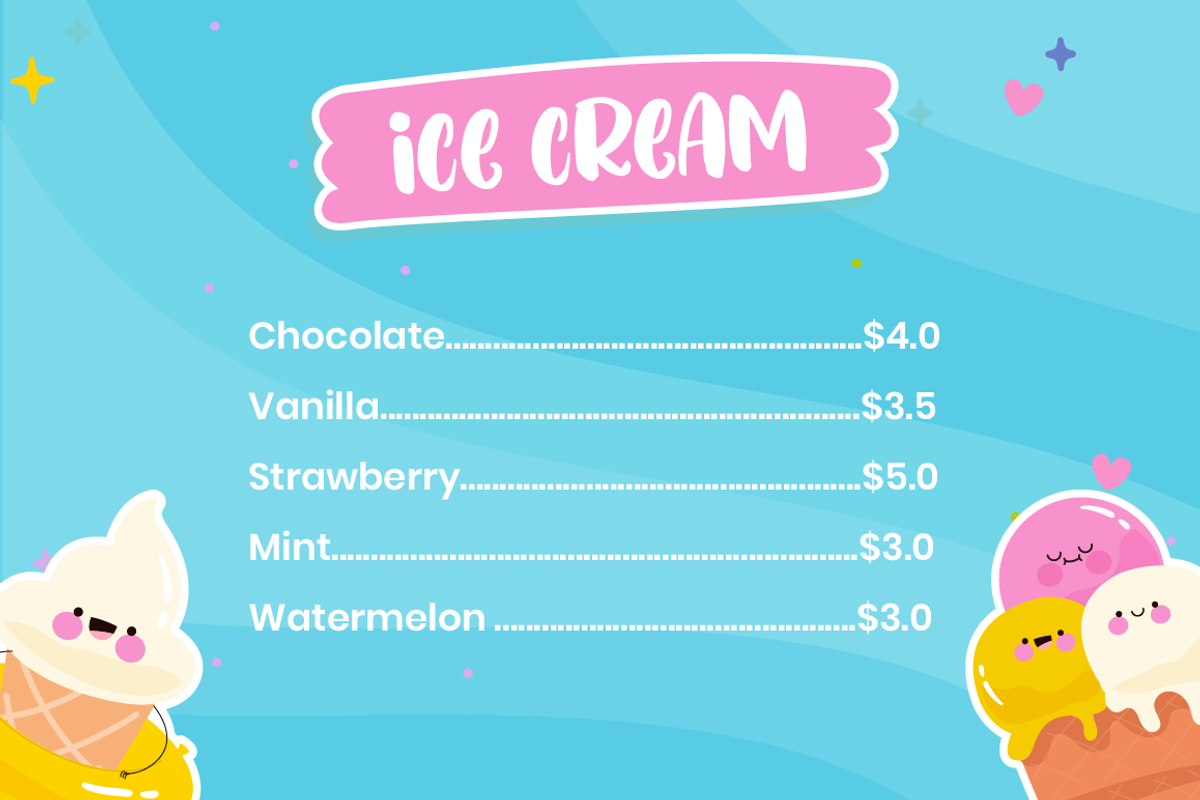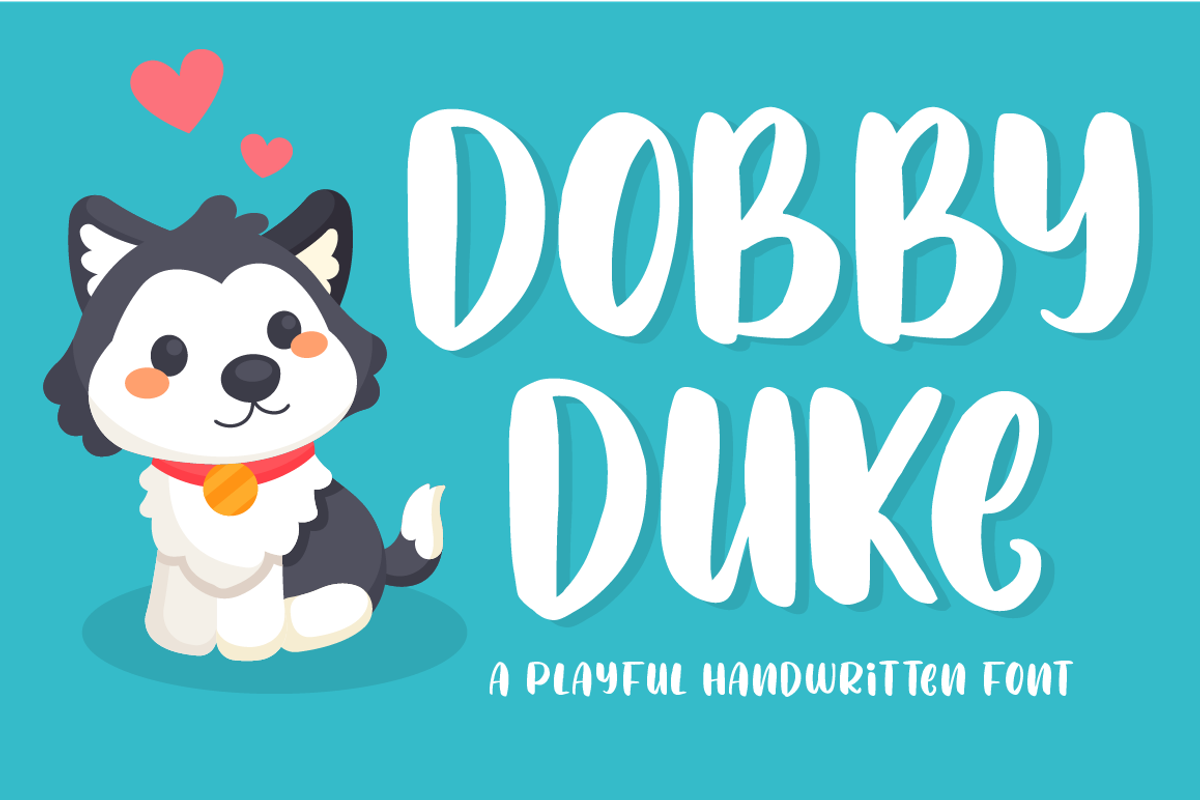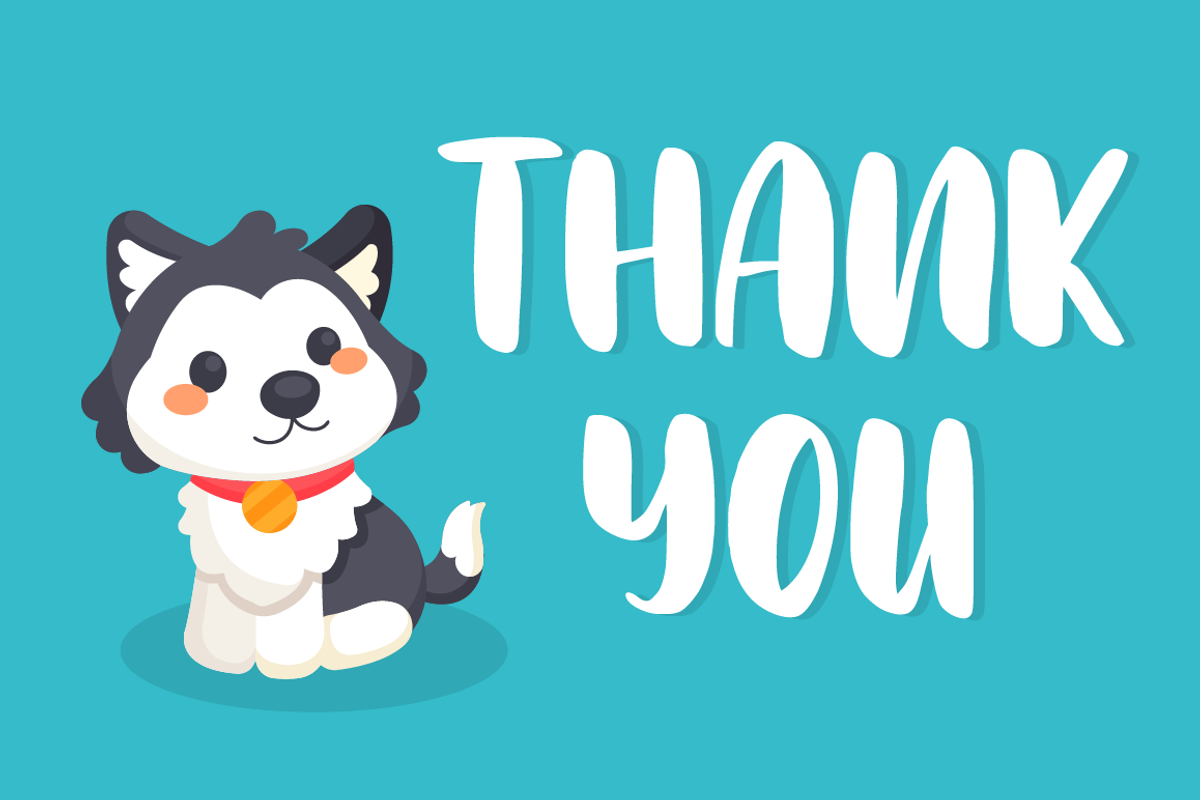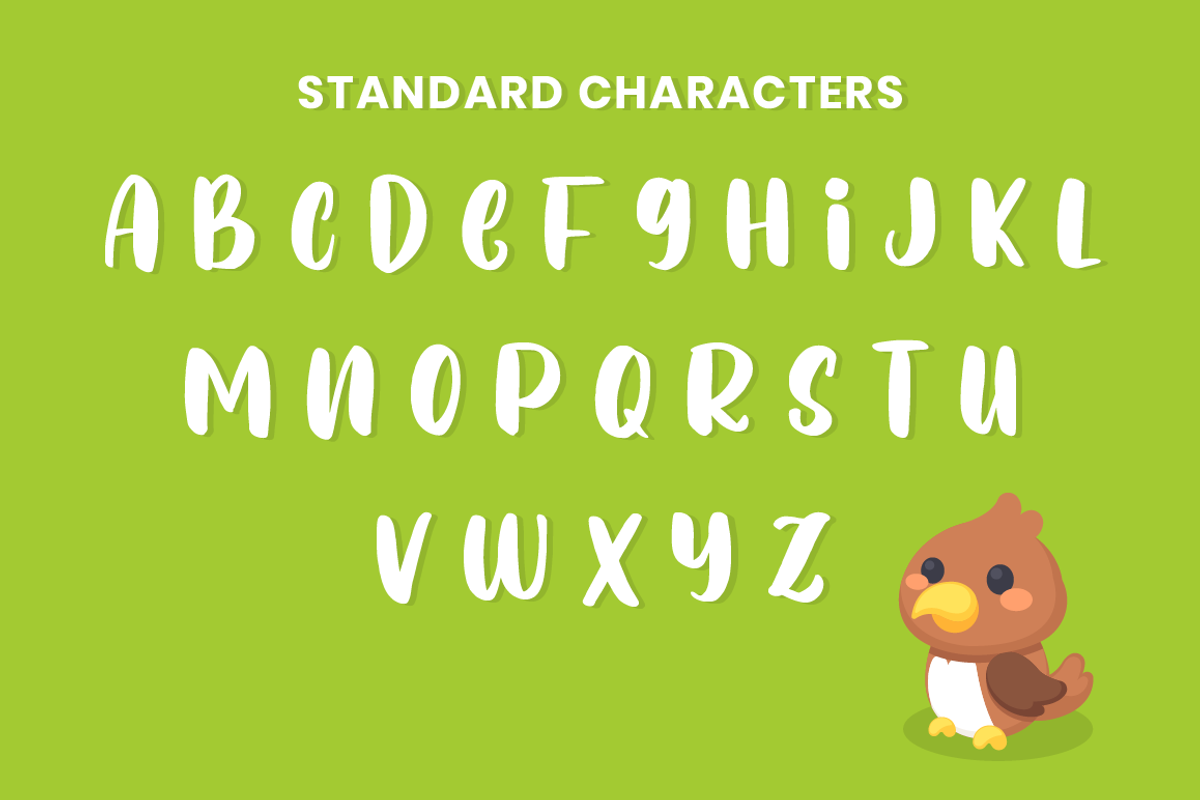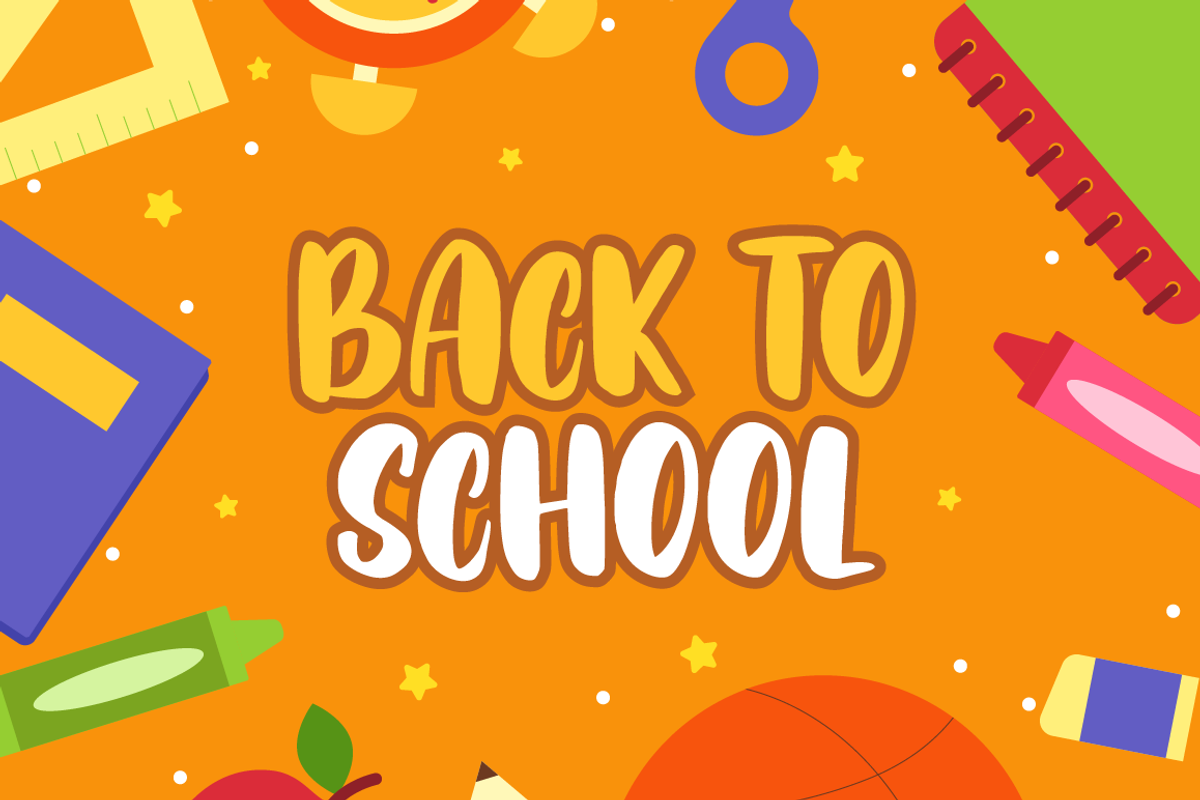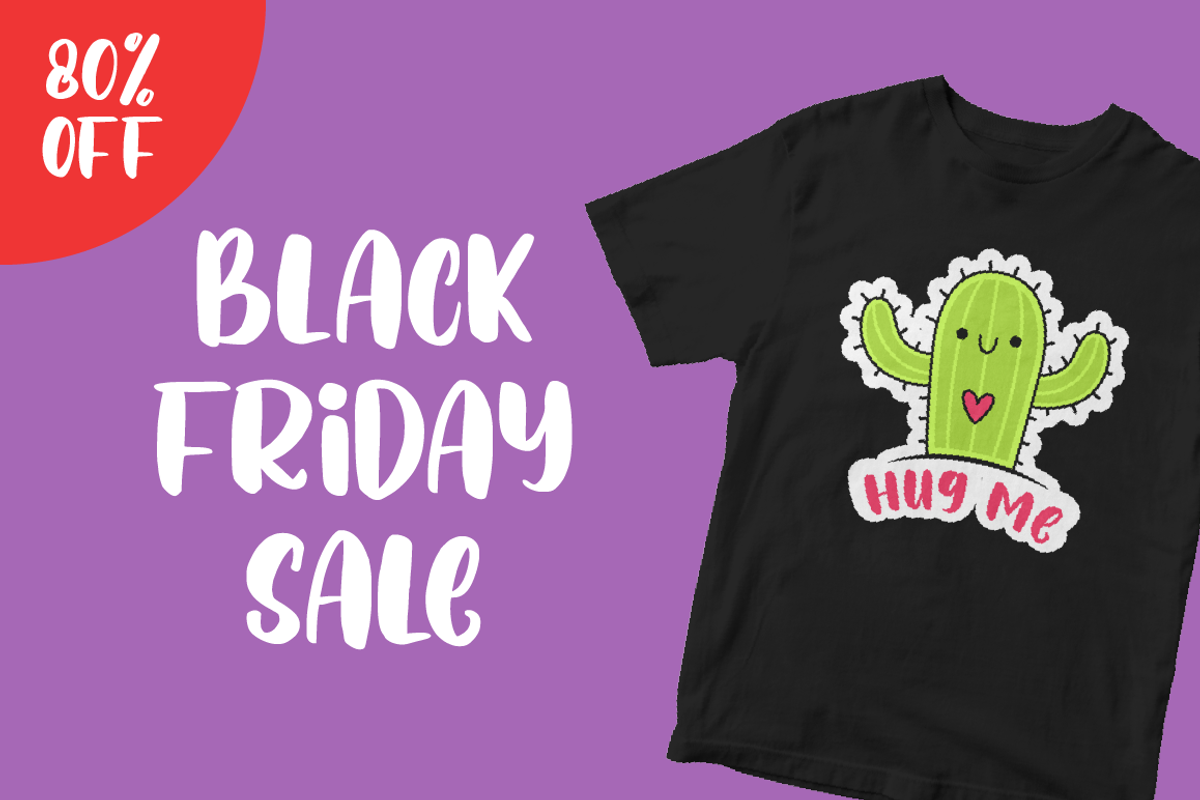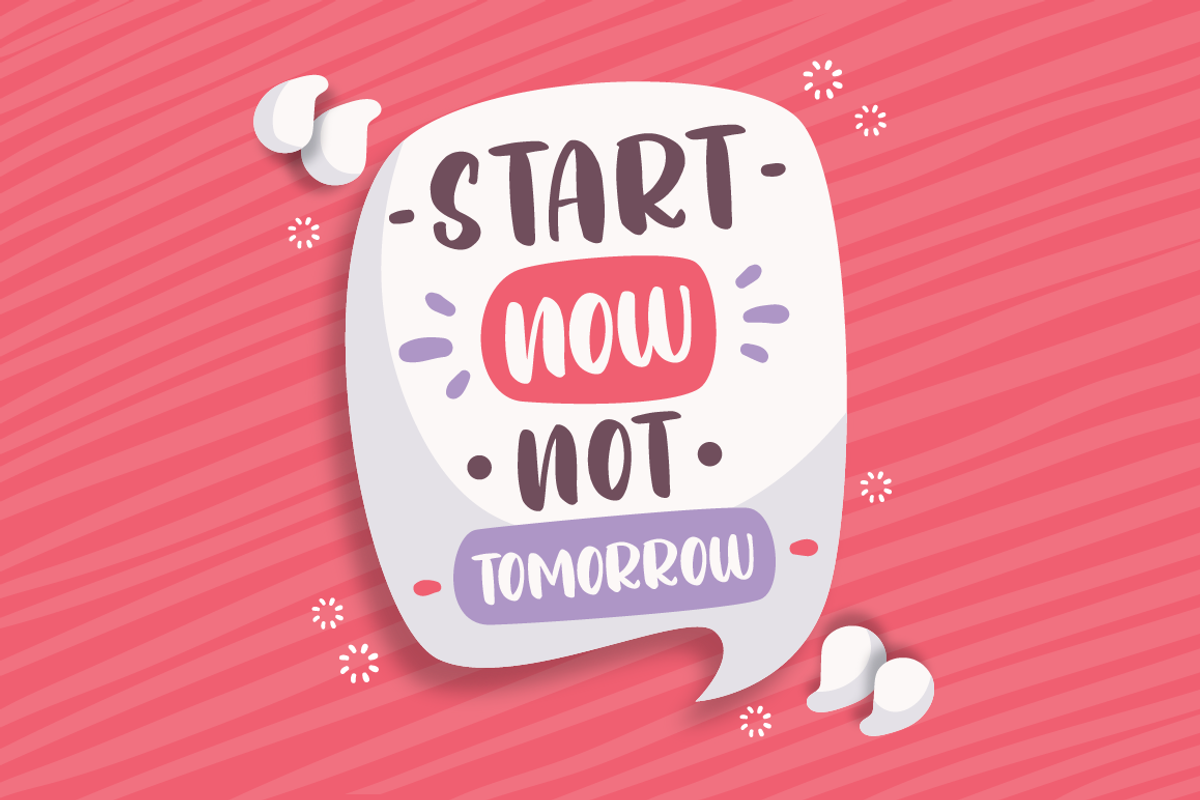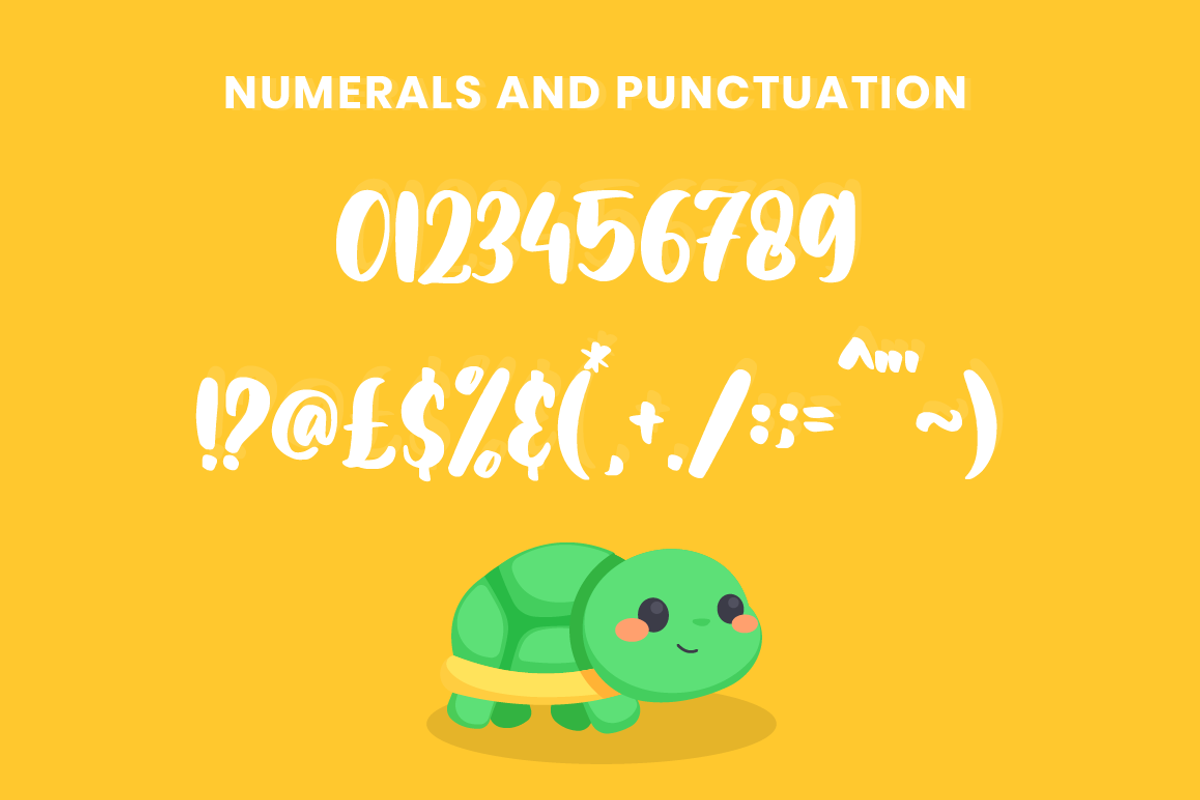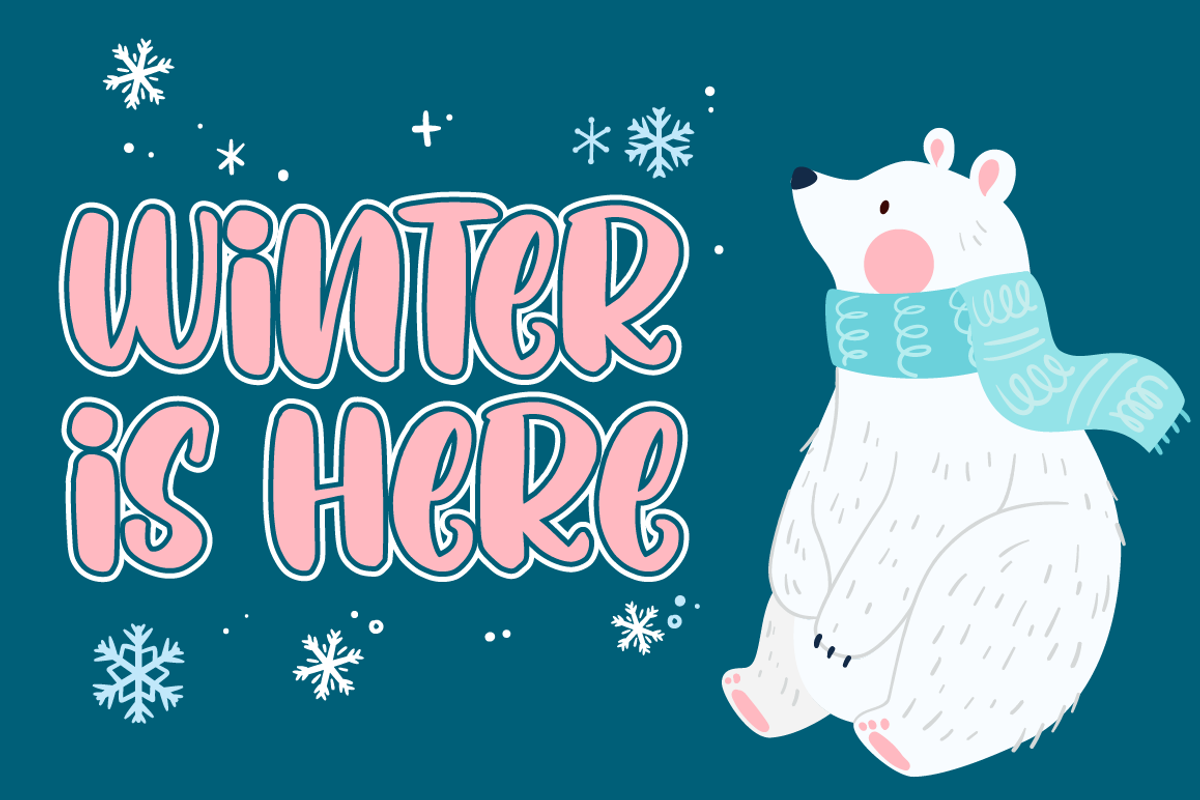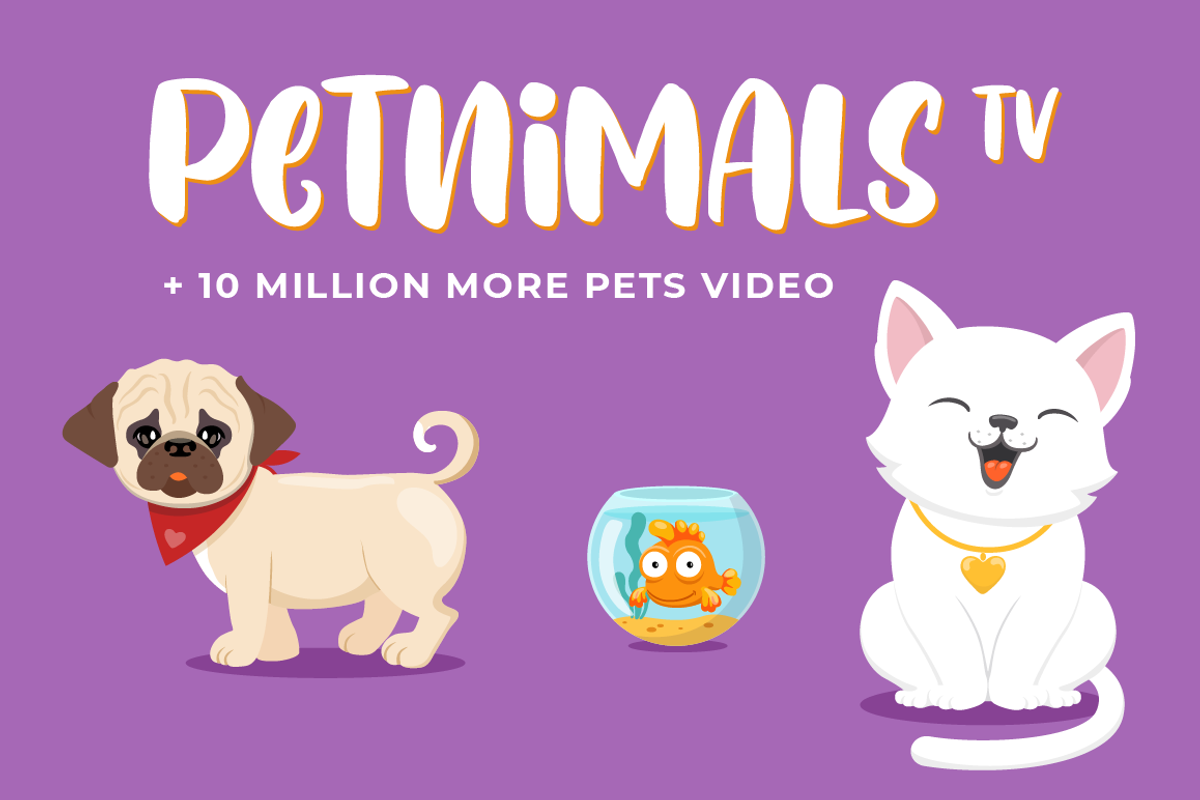
Dobby Duke Font
Dobby Duke is a cute and playful display font. It will add an incredibly joyful touch to your designs. Add this beautiful display font to each of your creative ideas and notice how it makes them stand out!